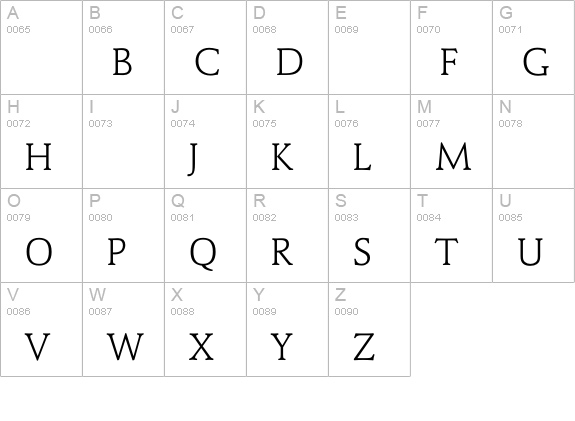
SainsburyLight Font Details
Introducing SainsburyLight font, a beautifully crafted typeface that effortlessly blends sophistication and simplicity. This versatile font is perfect for a wide range of design projects, from elegant branding and editorial layouts to stylish packaging and signage. SainsburyLight font exudes an air of modernity with its clean and minimalist design. Its slender letterforms and delicate strokes create a graceful aesthetic that captures attention without overwhelming the viewer. The balanced proportions and subtle curves of this font make it highly legible, ensuring a smooth reading experience across various mediums. One of the standout features of SainsburyLight font is its versatility. It effortlessly adapts to different styles and applications, making it an excellent choice for both print and digital projects. Whether you're designing a corporate brochure, a website interface, or a sophisticated wedding invitation, this font will effortlessly elevate your design to new heights. What sets SainsburyLight font apart is that it is freely available to download at FontsMarket.com. You no longer have to worry about licensing fees or restrictions, as this font is offered completely free of charge. This accessibility allows designers, students, and enthusiasts alike to explore its endless possibilities without any limitations. With its elegant and refined appearance, SainsburyLight font is sure to add a touch of sophistication to any design. Its timeless appeal and versatility make it a valuable addition to your font library. So why wait? Head over to FontsMarket.com today, and unlock the potential of SainsburyLight font for your next creative endeavor.